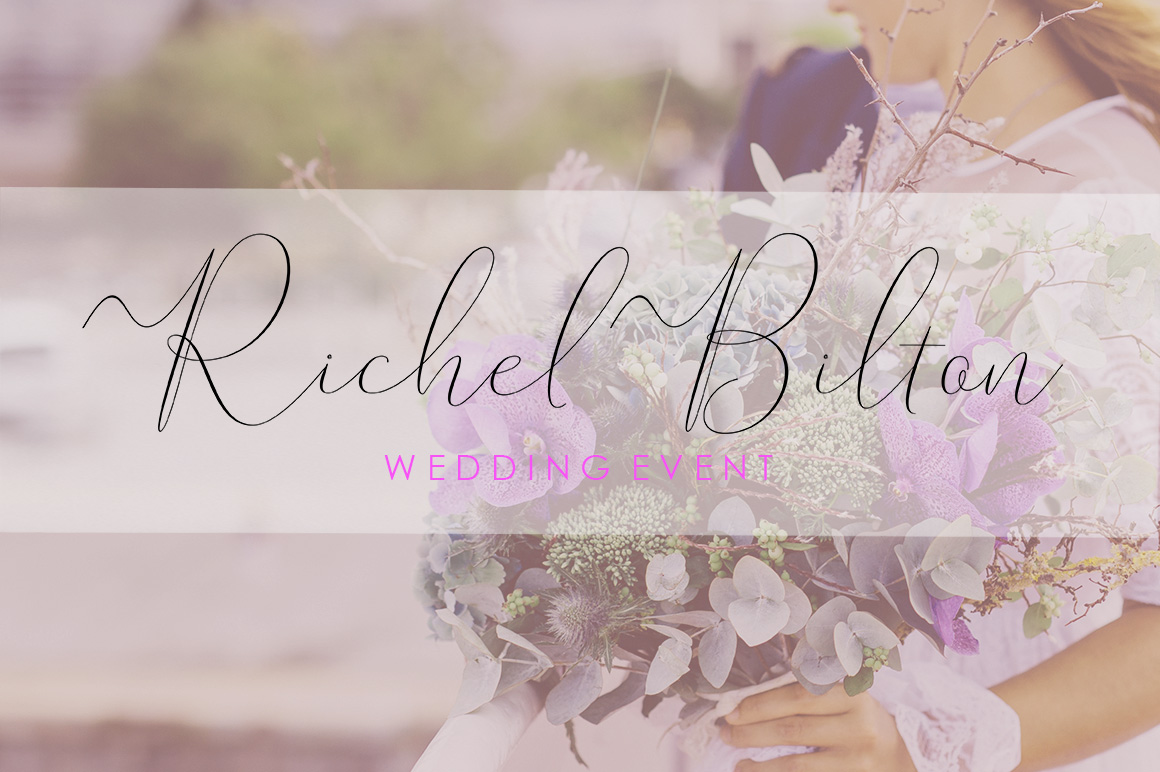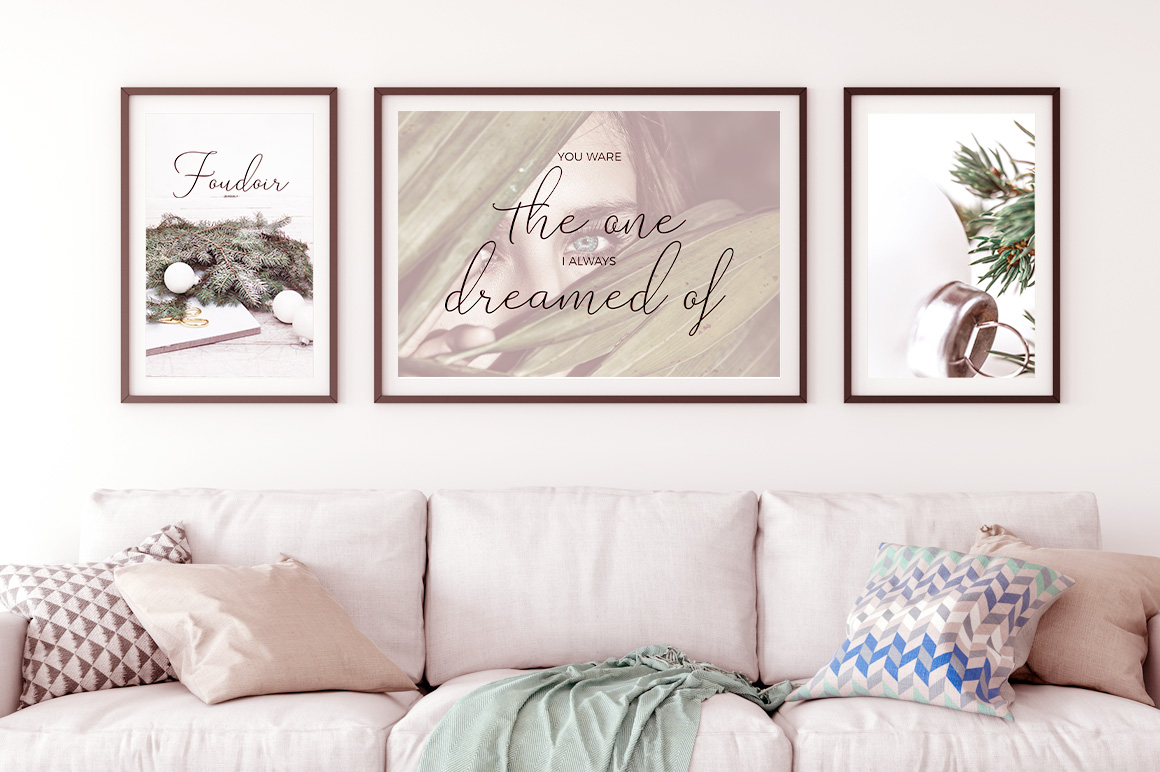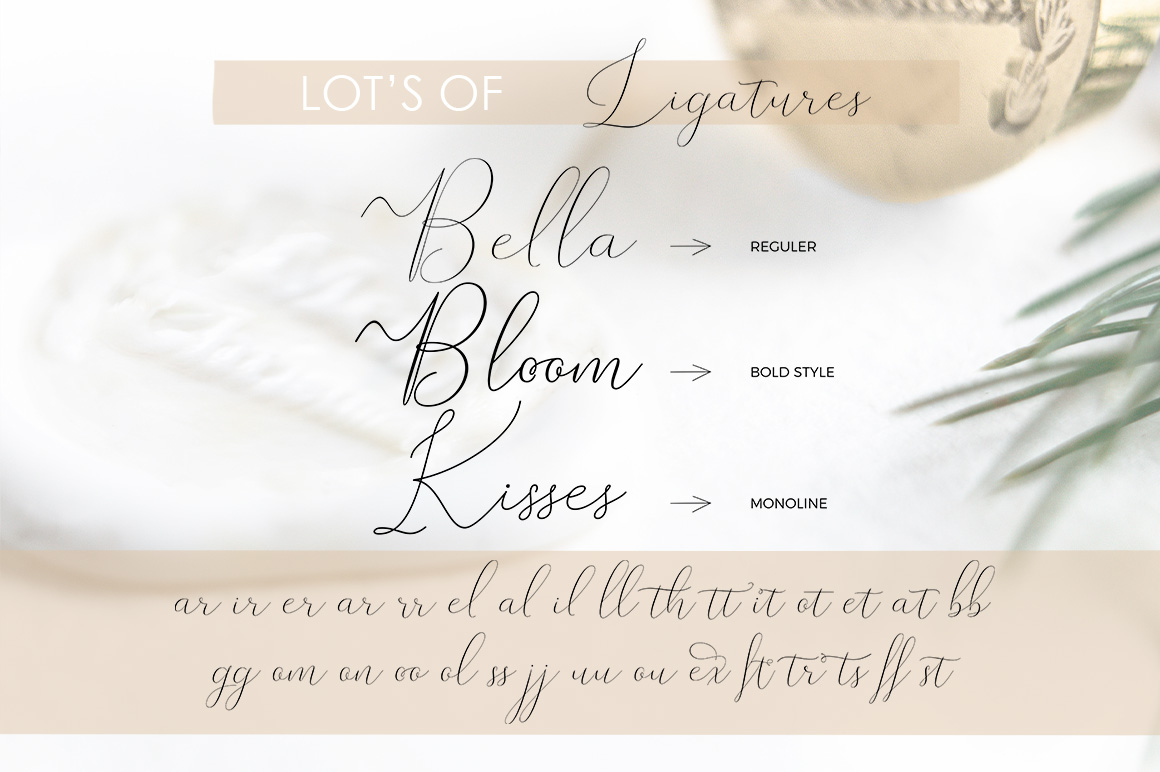
Introduction to Rishella Font
Imagine yourself in the midst of a creative frenzy, surrounded by sketches, color palettes, and typography options. You’re working on a high-end branding project, and you need a font that exudes elegance and sophistication. This is where the Rishella Font comes in – a stunning, high-quality font that’s sure to elevate your design to the next level.
As a valuable resource for designers, the Rishella Font offers a unique blend of style and versatility. Its delicate, thin lines create a sense of refinement, making it perfect for luxury corporate designs and personal projects alike. Whether you’re working on a logo, business card, or marketing materials, this font is sure to make a lasting impression.
Key Features of Rishella Font
- This versatile font comes in 5 unique styles, catering to diverse design needs and preferences.
- Rishella Font supports a wide range of languages, making it a suitable choice for multilingual projects.
Honest Review: Rishella Font
Here are some things that work well with the Rishella Font:
- ✨ Unique and elegant design aesthetic that’s perfect for modern projects
- ✨ Transparent background, making it easy to use on any background
However, I did encounter some limitations with the Rishella Font:
- ⚠️ Limited character set, which may not be suitable for extensive text-based projects
- ⚠️ May not be as versatile as other fonts, requiring more creative workarounds
Overall, I’m impressed with the Rishella Font as a design resource. While it may have some limitations, its unique design aesthetic and high quality make it a great addition to any designer’s toolkit. I would definitely recommend it for creative projects that require a touch of elegance and sophistication.
Rishella Font is ideal for creative projects that require a high-quality, stylish font. Some common use cases include:
- Social media graphics and advertising
- Logos and branding
- Posters and brochures